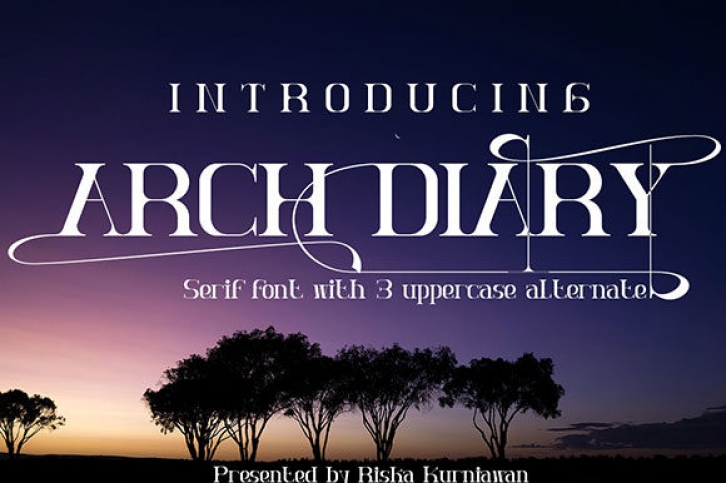
The Arch Diary is an unique serif font. It has a strong taste with thick curves and thin lines. It’s suitable to describe a person’s feelings and emotions.
The Arch Diary includes 3 alternates that can be used to give your design an elegant touch.